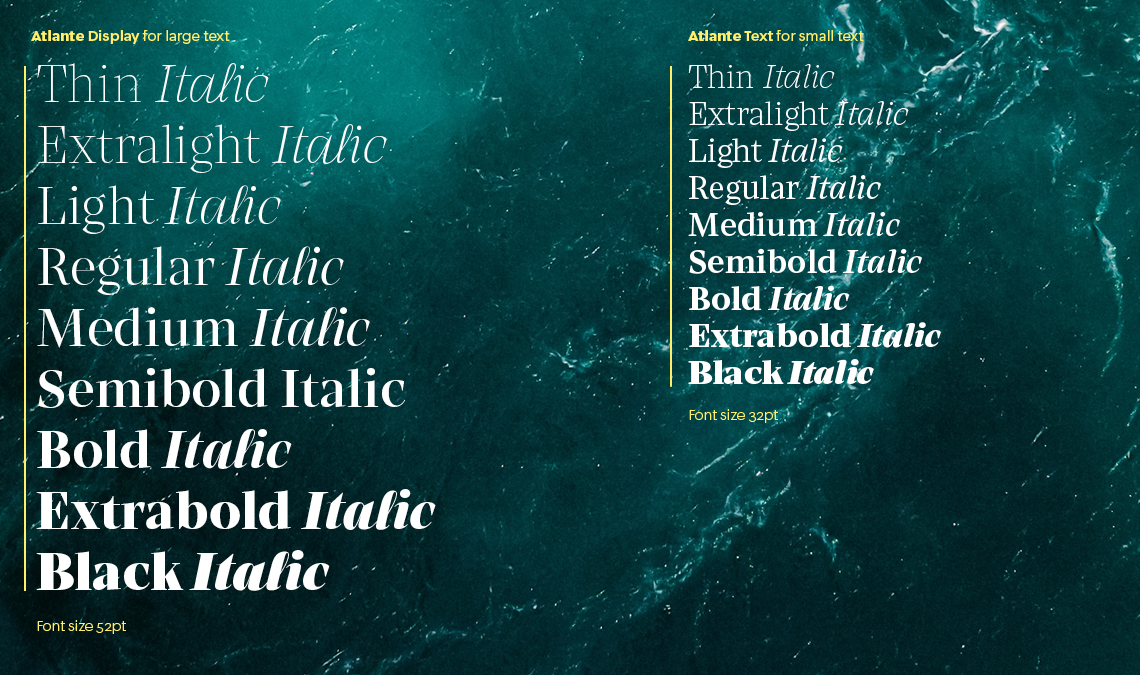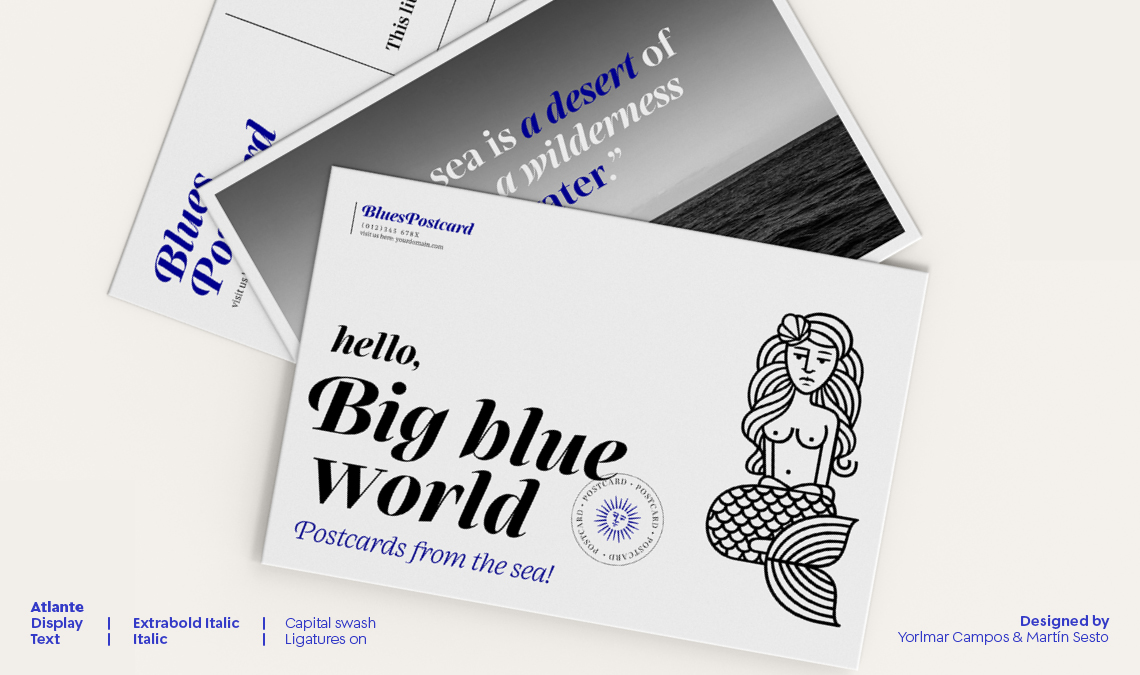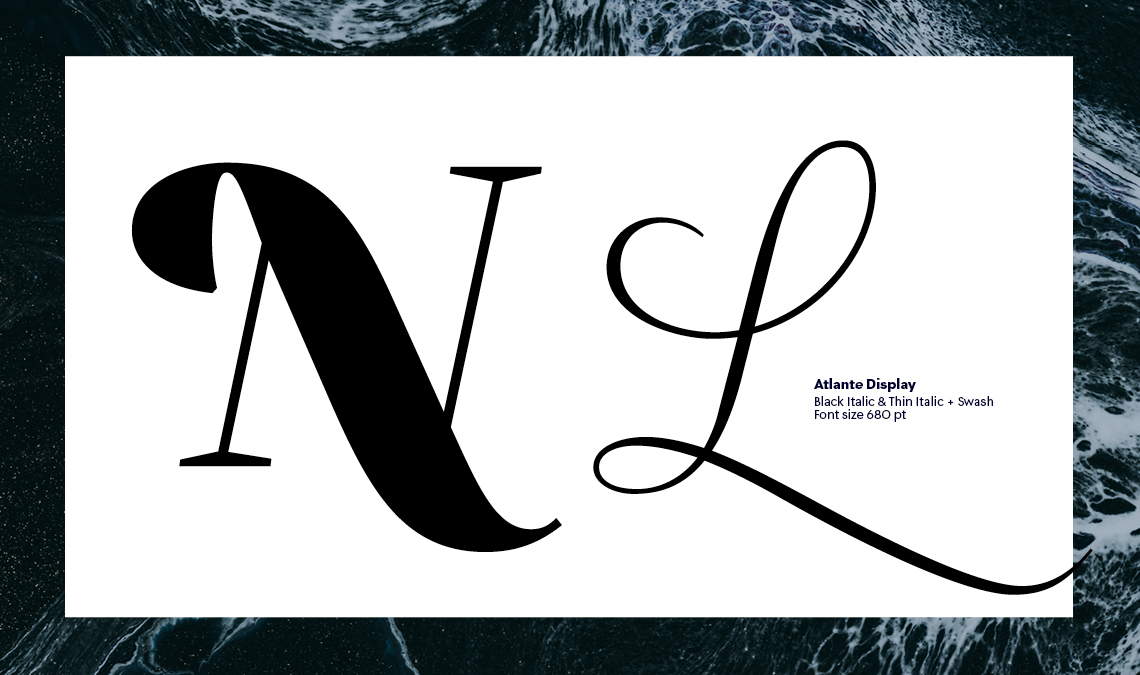
New release: Atlante
Say hello to Yorlmar Campos and Martín Sesto’s Atlante font family, an emotional typeface in the ‘serious serif’ category. Atlante fills this need with display and text versions, a tenacious italic, and more swashes, alternates, and ligatures than the average font family considers having. It’s conventional but excessive in all the best ways.